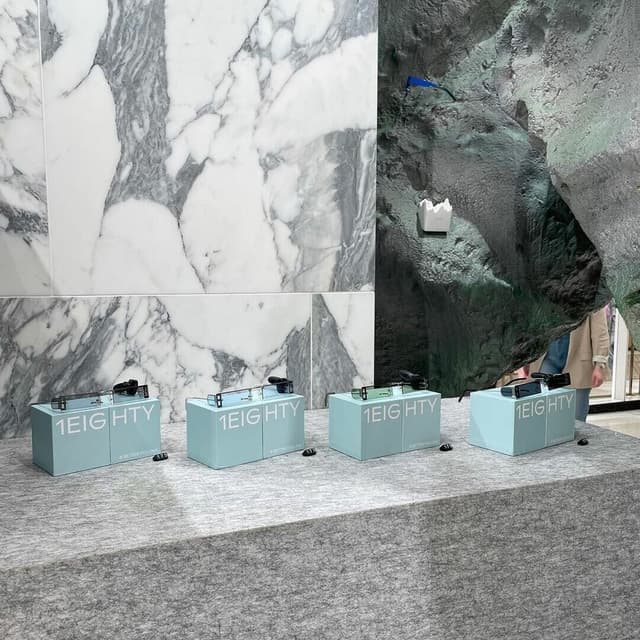
Dinamo collaborated with 3D artist Manuel Roßner of Hightype to transform their Monument Grotesk typeface into a fully three-dimensional version called HT Standard. The project optimized letterforms for 3D modeling, ensuring smooth polygon distribution and flexibility for animation and digital use. The result bridges flat and spatial typography, enabling seamless design across dimensions.
Set in ABC Monument Grotesk, HT Standard